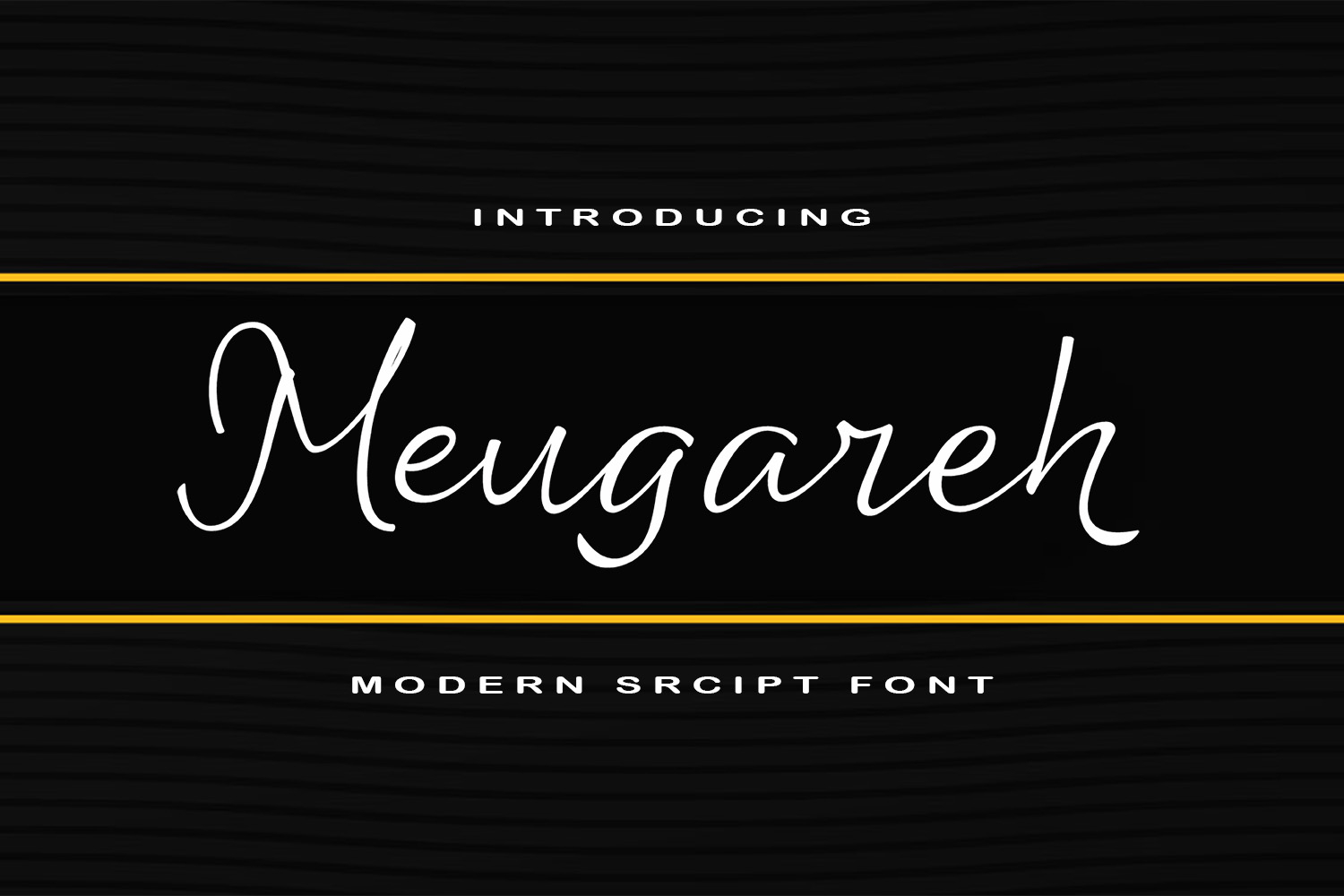
Meugareh
Meugareh is a fresh casual handwritten script. Perfect for adding an elegant and unique touch to your lettering and branding projects. Each letter has been carefully crafted to make your text look beautiful. With a script lettering style, this font will be perfect for a variety of projects, for example: quotes, blog headers, posters, weddings, brands, logos, fashion, clothing, letters, invitations, stationery, etc.